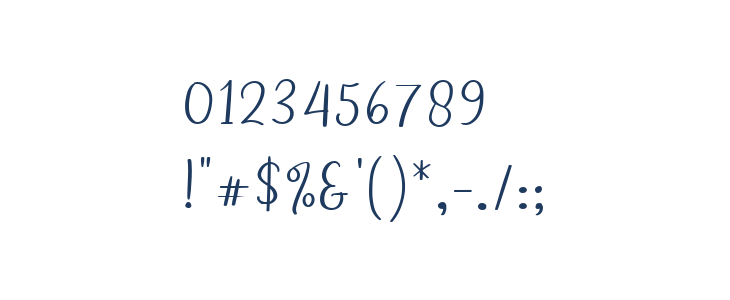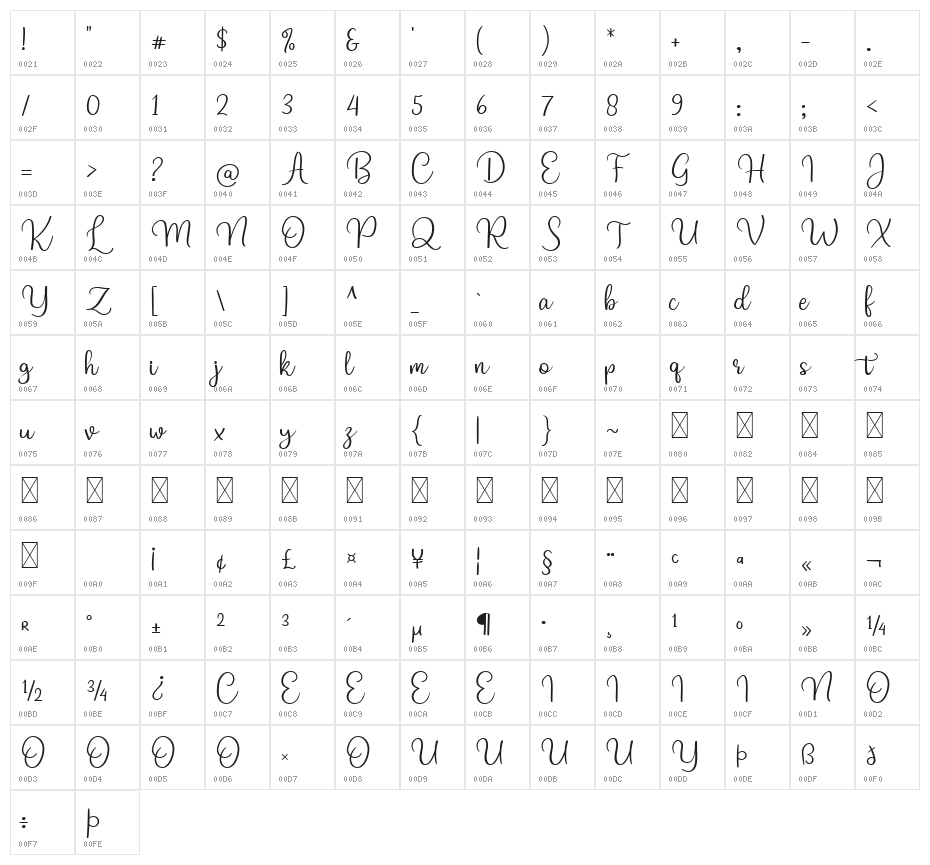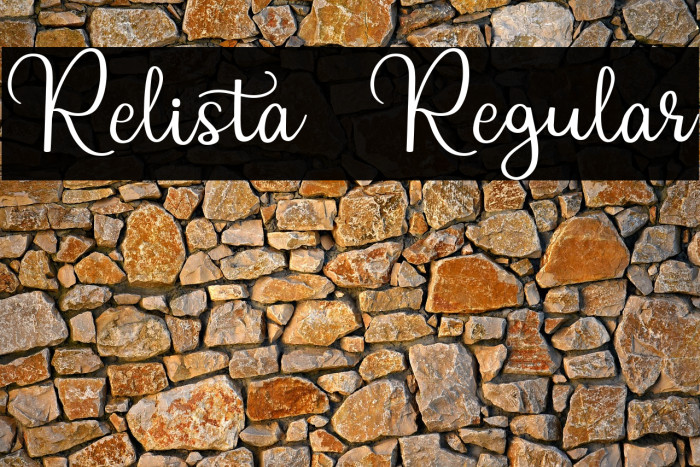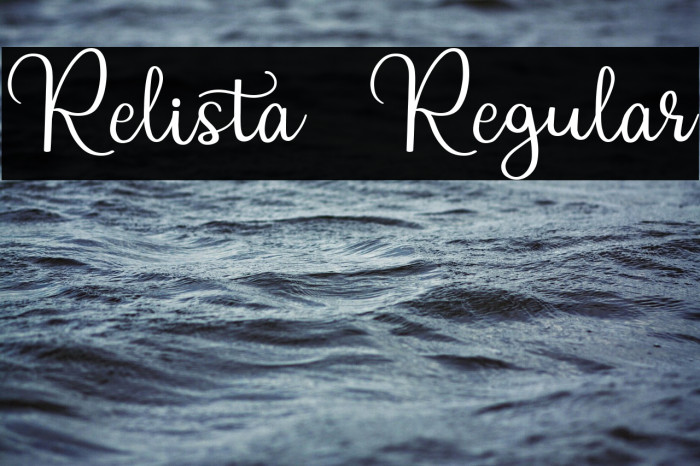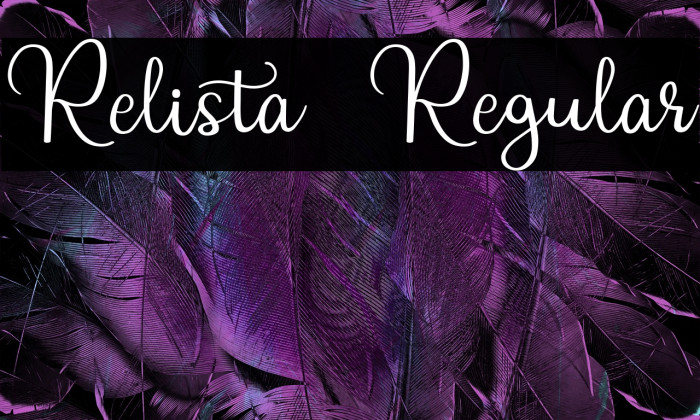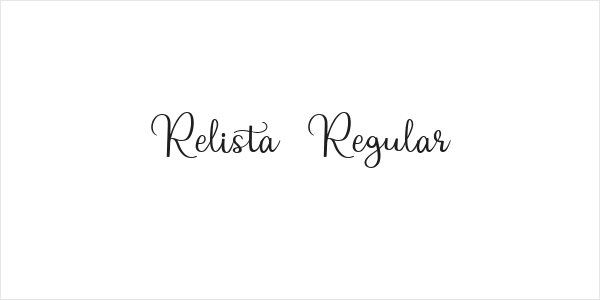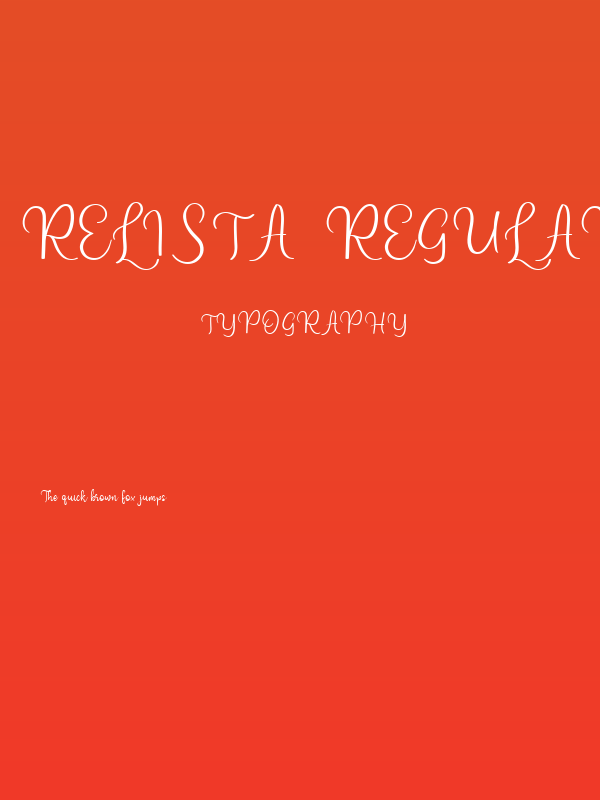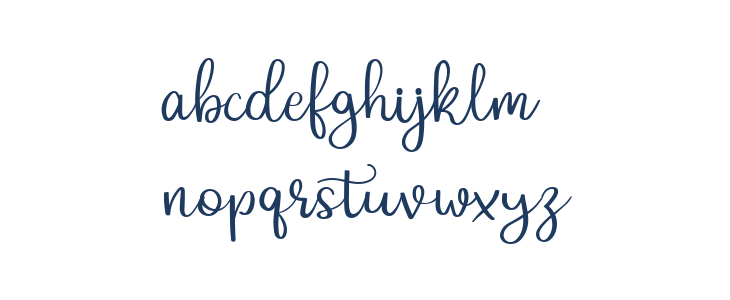
Relista Regular Font
Relista Regular Description
This font features a charming and elegant script style with a flowing, handwritten appearance. The uppercase letters are gracefully curved, giving a sense of sophistication and fluidity. The lowercase letters maintain a consistent style, with smooth connections between strokes that enhance readability while preserving an artistic flair. The numerals are well-proportioned and align harmoniously with the overall design, making them suitable for various applications. Special characters are thoughtfully crafted, adding versatility to the font's usage. The font's overall aesthetic is both modern and timeless, making it an excellent choice for projects that require a personal touch.
| Overall Style | Elegant, Handwritten |